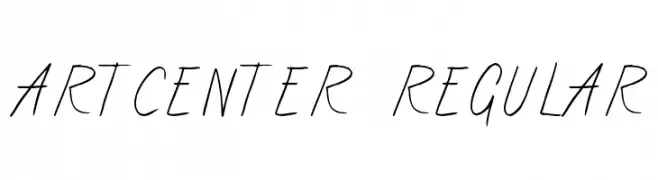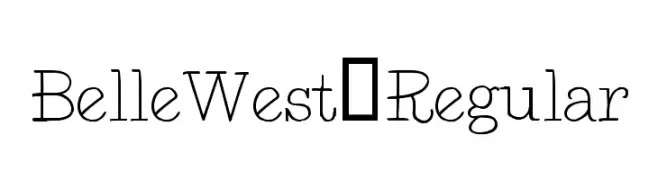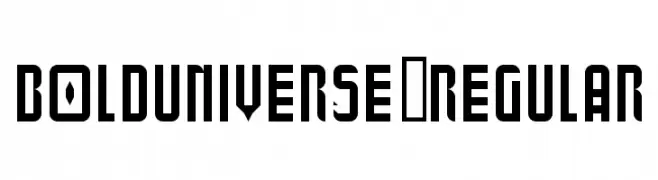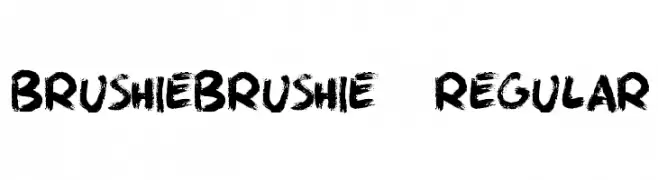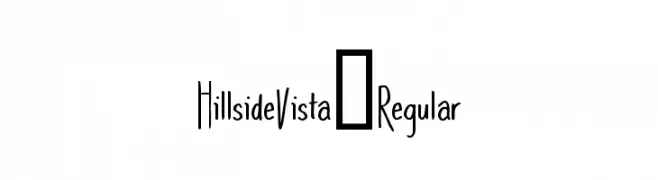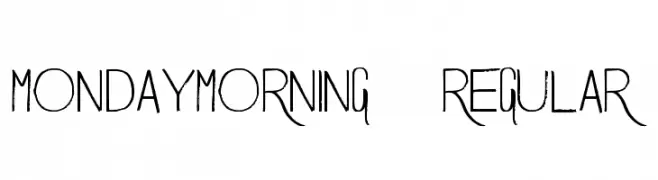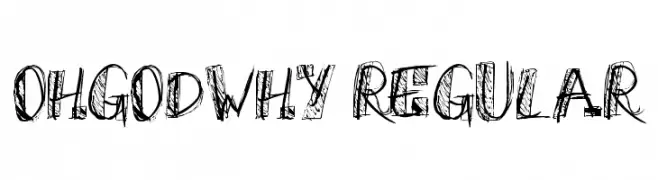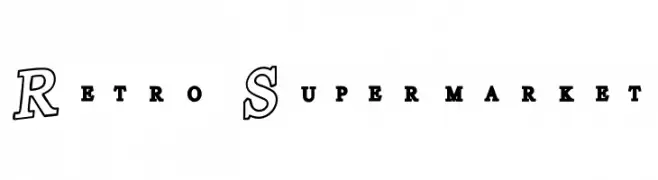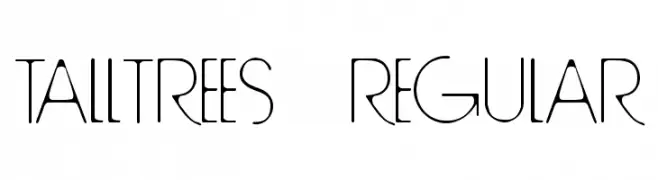
A bold, geometric font with angular lines and cut-out shapes, ideal for display use.
A bold, brush-stroke style font with dynamic and artistic flair.
A bold, classic serif font with strong strokes and sharp serifs.
A playful, hand-drawn style with elongated, irregular letterforms.
A modern, elegant font with tall, slender uppercase characters.
A chaotic, sketchy font with a hand-drawn, scribbled texture.
A casual, handwritten font with a dynamic and flowing style.
A whimsical, hand-drawn font with elongated strokes and playful curves.
A bold, retro font with a three-dimensional outline and vintage flair.
A refined serif font with elegant lines and subtle curves.